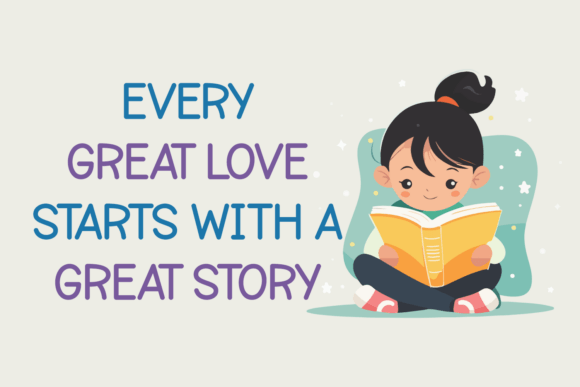
Introducing Common Mistake Font: The Perfect Handwritten Font for Creative Projects
Are you tired of using the same old fonts for your creative projects? Do you want to add a personal touch to your designs and make them stand out from the crowd? Look no further than Common Mistake Font, a casual handwritten font that exudes a playful and authentic vibe. In this article, we’ll take a closer look at what makes Common Mistake Font special and how you can use it to elevate your designs.
What is Common Mistake Font?
Common Mistake Font is a unique and charming handwritten font that is perfect for designers and crafters looking for a friendly and approachable feel. Its imperfect strokes and relaxed style give it a personal, human touch that is hard to replicate with traditional fonts. Whether you’re working on a greeting card, social media post, logo, or any other project, Common Mistake Font is sure to add a touch of warmth and personality.
Key Features of Common Mistake Font
- Playful and Authentic Vibe: Common Mistake Font has a playful and authentic vibe that is perfect for creative projects. Its unique character set and irregular strokes make it stand out from traditional fonts.
- Imperfect Strokes: The font’s imperfect strokes and relaxed style give it a personal, human touch. This makes it perfect for designs that require a friendly and approachable feel.
- Casual and Handwritten: Common Mistake Font is a casual handwritten font that is perfect for a wide range of creative projects. Its handwritten feel makes it ideal for greeting cards, social media posts, and other personal designs.
- Versatile: Common Mistake Font is a versatile font that can be used for a wide range of projects. Whether you’re working on a logo, brochure, or social media post, this font is sure to add a touch of personality.
How to Use Common Mistake Font
- Greeting Cards: Common Mistake Font is perfect for greeting cards. Use it to add a personal touch to your cards and make them stand out from the crowd.
- Social Media Posts: Use Common Mistake Font to add a friendly and approachable feel to your social media posts. It’s perfect for Instagram, Facebook, and Twitter.
- Logos: Common Mistake Font can be used to create unique and memorable logos. Its playful and authentic vibe makes it perfect for branding and identity designs.
- Crafting Projects: If you’re a crafter, you’ll love Common Mistake Font. Use it to add a personal touch to your crafting projects, such as scrapbooking, journaling, and card making.
Benefits of Using Common Mistake Font
- Adds a Personal Touch: Common Mistake Font adds a personal touch to your designs. Its imperfect strokes and relaxed style make it feel like it was written by hand.
- Unique and Memorable: Common Mistake Font is a unique and memorable font that will make your designs stand out from the crowd.
- Easy to Read: Despite its imperfect strokes, Common Mistake Font is easy to read. This makes it perfect for designs that require a lot of text.
- Versatile: Common Mistake Font is a versatile font that can be used for a wide range of projects.
Common Mistake Font is a unique and charming handwritten font that is perfect for designers and crafters looking for a friendly and approachable feel. Its imperfect strokes and relaxed style give it a personal, human touch that is hard to replicate with traditional fonts. Whether you’re working on a greeting card, social media post, logo, or any other project, Common Mistake Font is sure to add a touch of warmth and personality. So why not give it a try and see how it can elevate your designs?